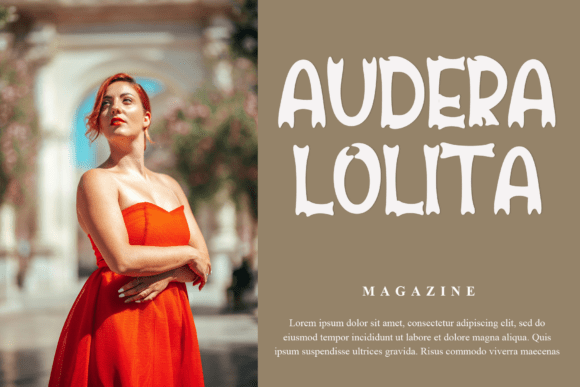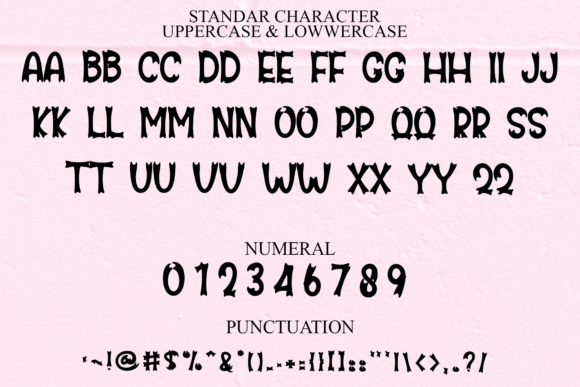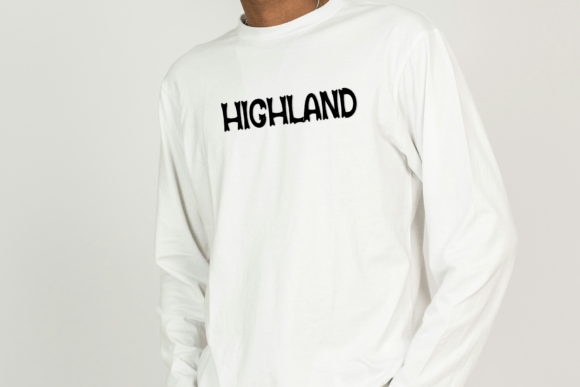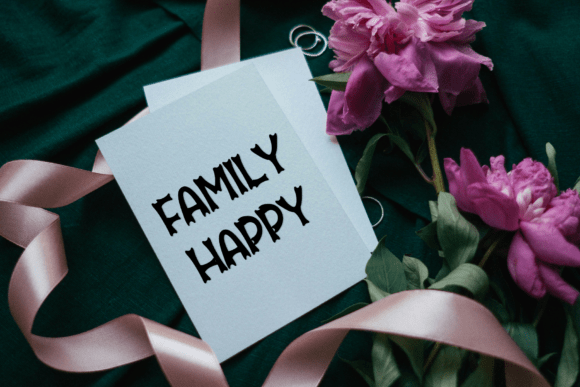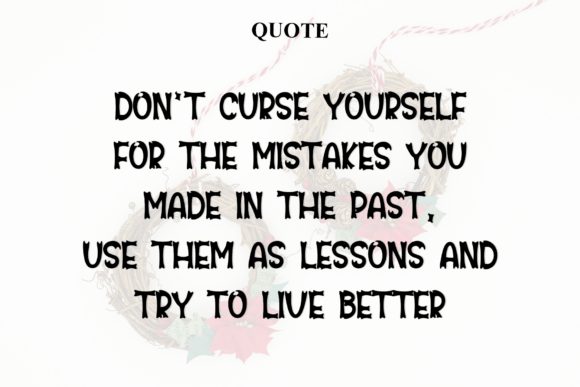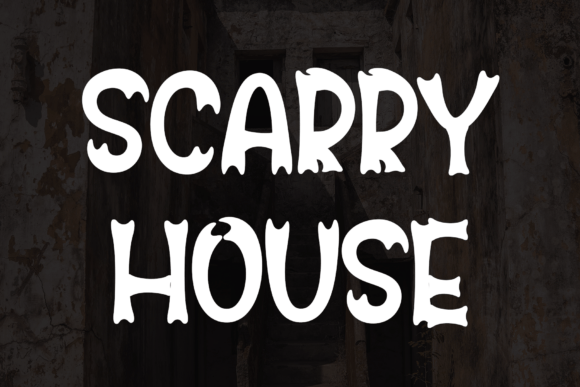
The Perfect Blend of Funk and Flair: Unlocking the Groovy Hounted Font
Have you ever stared at a blank page, waiting for inspiration to strike, only to have it hit you like a wave of creative genius? That’s exactly what happened to me when I stumbled upon the Groovy Hounted Font. Its unique strokes and soft touch immediately captured my attention, and I knew I had to learn more.
As it turns out, the Groovy Hounted Font is a beautiful and eye-catching font designed for creative projects and crafts. With its distinctive character, it’s the perfect addition to any design project, adding a touch of funk and flair that’s sure to grab attention. For designers, this font is a valuable asset, offering endless possibilities for creative expression and versatility in various applications, including Windows and open-source platforms.
Groovy Haunted Font Key Features
- Font Family: Groovy Haunted Font is a unique, hand-drawn font designed to evoke a spooky atmosphere.
- Character Set: Includes 200+ glyphs, including uppercase and lowercase letters, numbers, punctuation, and special characters, making it suitable for a wide range of applications.
- Unique Characteristics: Features a distressed, hand-drawn design with subtle texture and imperfections, giving it a one-of-a-kind look that’s perfect for adding a touch of spookiness to your designs.
Groovy Haunted Font Review
I recently had the chance to work with the Groovy Haunted Font and I must say, it’s a real treat. ✨ Here are some of the things that I loved about it:
- Unique Style: The font has a truly one-of-a-kind style that’s perfect for creating a spooky or mysterious atmosphere.
- High-Quality Renders: The font renders beautifully on both digital and print media, making it a great choice for designers who need a reliable font.
- Extensive Character Set: The font includes a wide range of characters, including punctuation, symbols, and even some creepy sound effects.
However, as with any font, there are some limitations. ⚠️ Here are a few things to keep in mind:
- Limited Legibility: The font can be a bit difficult to read at smaller sizes, especially for body text.
- Not Ideal for Body Text: The font is better suited for headings, titles, and other display text where it can shine.
Overall, I’m really impressed with the Groovy Haunted Font. It’s a great choice for designers who want to add some personality and style to their projects. With a little care and attention, it can really help bring your designs to life.
Tips: Experiment with different font sizes and colors to create a spooky atmosphere. Use the font to highlight important text or create a sense of drama.
Tips: Use the font to create spooky titles or add a haunted feel to your illustrations. Experiment with layer styles and effects to enhance the font’s appearance.
Tips: Use the font to create spooky presentations or add a haunted feel to your documents. Experiment with different font sizes and colors to create a dramatic effect.
The Groovy Haunted Font is perfect for:
- Halloween-themed designs
- Spooky titles and headings
- Haunted house or cemetery designs
- Creepy illustrations or graphics
Alternatives to Groovy Hounted Font
Great Vibes is a modern, handwritten font that works well for headings and titles. It’s perfect for creating a fun and playful atmosphere in designs. Great Vibes is more cursive and less ghostly compared to Groovy Hounted Font.
Alex Brush is a beautiful, elegant script font that’s suitable for luxury brands and high-end designs. It’s more refined and sophisticated than Groovy Hounted Font and has a softer, more delicate feel.
Crimson Text is a serif font with a touch of elegance and sophistication. It’s perfect for body text and works well in combination with Great Vibes or Alex Brush for headings. Crimson Text is more formal and less whimsical compared to Groovy Hounted Font.